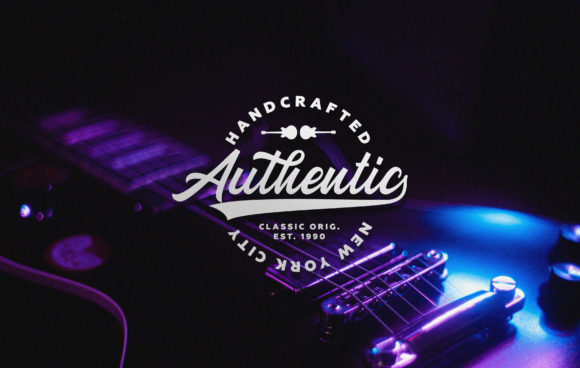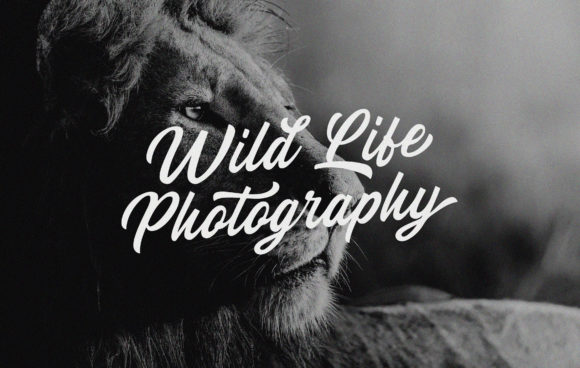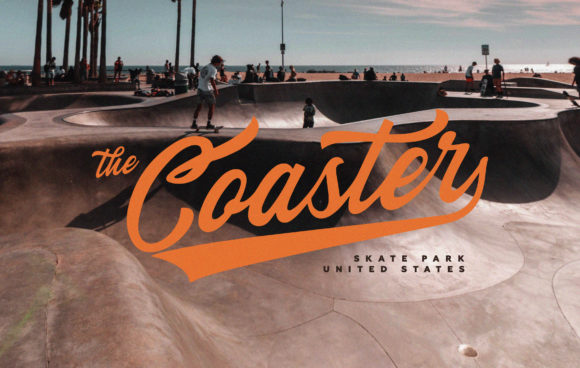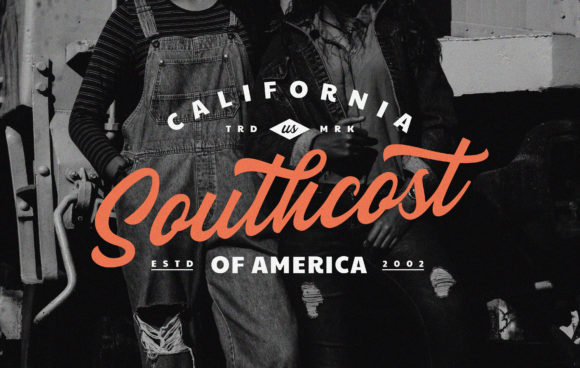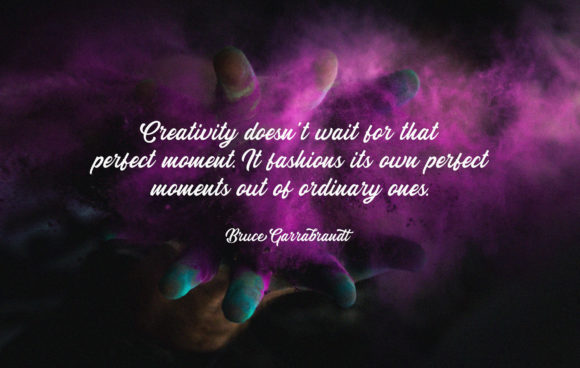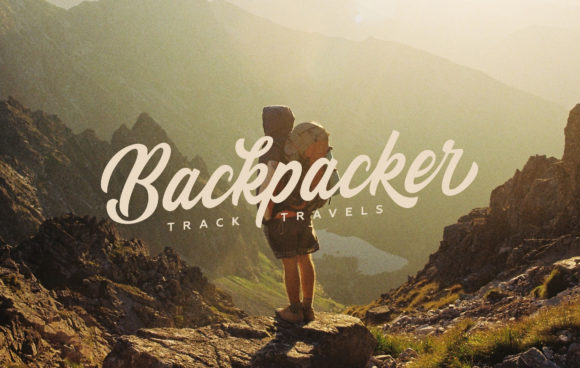
Bolgate Font: Elevate Your Designs with a Bold and Beautiful Script Font
In the world of typography, a font can make or break a design. It’s the perfect blend of form and function, conveying a message while also evoking an emotional response. For designers and crafters looking to add a touch of elegance and sophistication to their work, Bolgate Font is an excellent choice. This stunning script font is designed to make a statement, with its bold and confident style that exudes dynamism and flair.
The Characteristics of Bolgate Font
Bolgate Font is a beautiful and bold script font that reads as strong, confident, and dynamic. Its unique characteristics make it an excellent addition to any design project. Here are some of its key features:
- Bold and Confident: Bolgate Font is not for the faint of heart. It’s a font that demands attention, with its bold and confident style that’s perfect for making a statement.
- Dynamic and Expressive: This font is designed to add tons of stylish character to your designs. Its dynamic and expressive nature makes it perfect for creative projects that require a touch of personality.
- Script Style: Bolgate Font is a script font that features beautiful, flowing connections between letters. Its script style adds a touch of elegance and sophistication to any design.
- Versatile: Whether you’re working on a branding project, a wedding invitation, or a social media graphic, Bolgate Font is a versatile choice that can adapt to any design style.
Uses of Bolgate Font
Bolgate Font is a versatile font that can be used in a variety of design projects. Here are some of the ways you can use this beautiful script font:
- Branding and Logo Design: Bolgate Font is perfect for creating a bold and memorable brand identity. Its confident style makes it an excellent choice for logos, business cards, and letterheads.
- Wedding and Event Design: Add a touch of elegance and sophistication to your wedding invitations, save-the-dates, and event branding with Bolgate Font.
- Social Media Graphics: Make your social media graphics stand out with Bolgate Font. Its dynamic style is perfect for creating eye-catching posts, stories, and ads.
- Packaging Design: Bolgate Font can add a touch of personality to your packaging design. Use it for product labels, tags, and packaging materials.
Tips for Using Bolgate Font
To get the most out of Bolgate Font, here are some tips to keep in mind:
- Use it as a Headline Font: Bolgate Font is perfect for headlines and titles. Use it to create bold and eye-catching headings that grab attention.
- Pair it with a Simple Font: For body text, pair Bolgate Font with a simple and clean font to create contrast and visual interest.
- Experiment with Colors: Bolgate Font looks great in a variety of colors. Experiment with different colors to find the perfect combination for your design.
- Don’t Overuse it: While Bolgate Font is a beautiful font, it’s best to use it sparingly. Overusing it can make your design look cluttered and overwhelming.
Bolgate Font is a beautiful and bold script font that’s perfect for designers and crafters looking to add a touch of elegance and sophistication to their work. Its confident style and dynamic nature make it an excellent choice for a variety of design projects, from branding and logo design to wedding and event design. With its versatility and range of uses, Bolgate Font is a font that’s sure to elevate your designs and make them stand out.